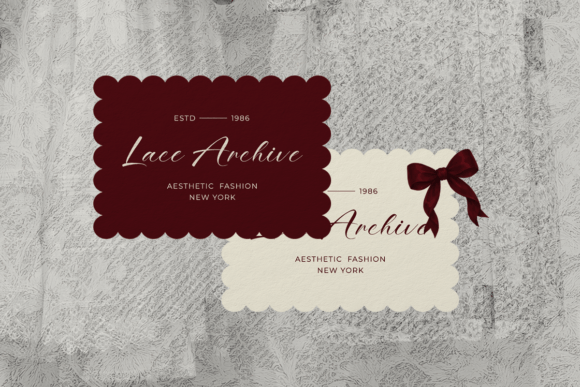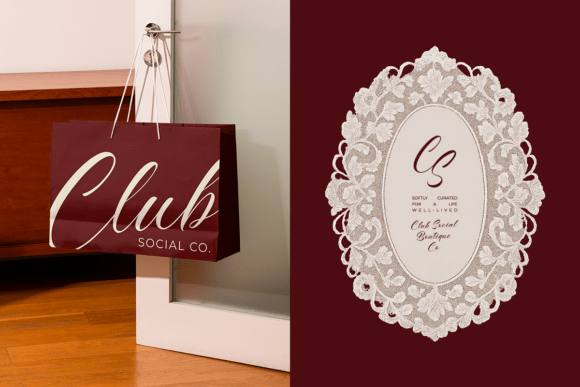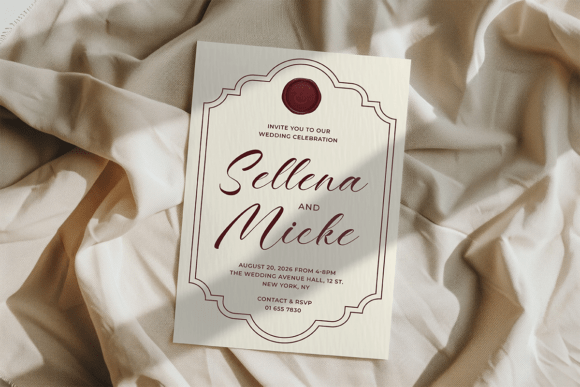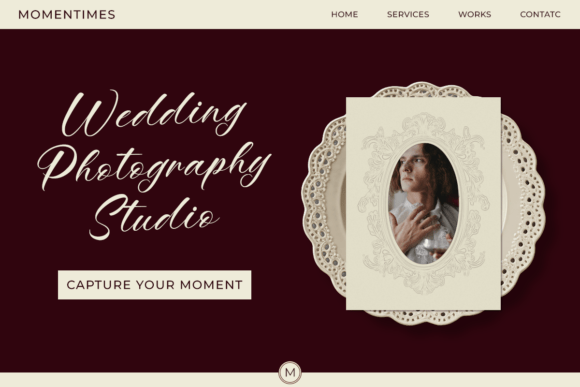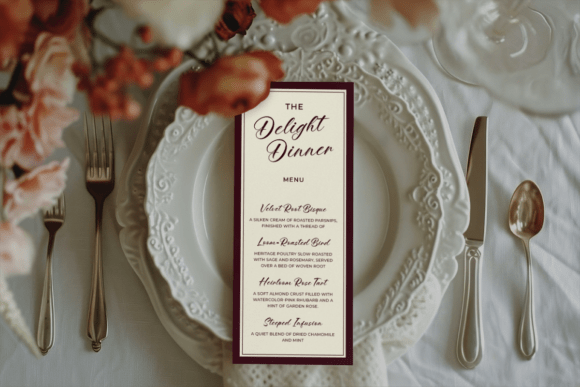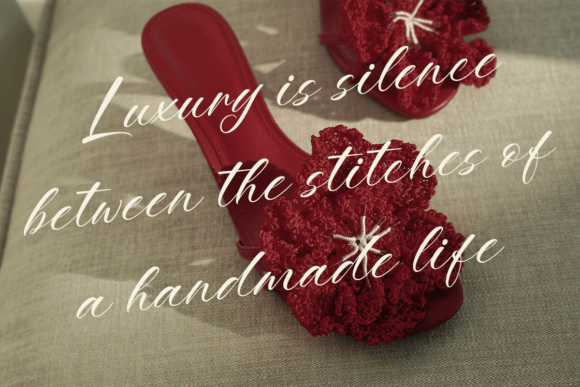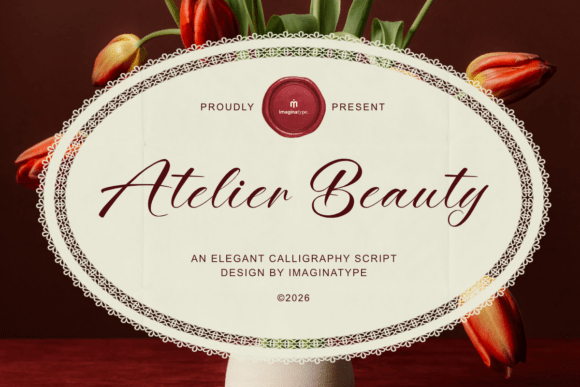
Discover the Timeless Elegance of Atelier Beauty Font
Have you ever been in the middle of a design project, pouring your heart and soul into every detail, only to realize that the perfect font is still elusive? I recall a particularly frustrating experience while working on a luxury wedding invitation project. My client wanted a font that exuded elegance, sophistication, and romance, but everything I tried seemed to fall flat. That was until I stumbled upon Atelier Beauty, a refined calligraphy script typeface that instantly elevated my design to new heights.
A Personal Review of Atelier Beauty
I’m thrilled to share my honest review of Atelier Beauty, a font that has quickly become a staple in my design arsenal.
- ✨ Elegant calligraphy script: Atelier Beauty boasts a sophisticated, handwritten feel that’s perfect for luxury branding, wedding invitations, and high-end packaging.
- ✅ Graceful, flowing strokes: The font’s smooth connections and high-contrast letterforms create a beautiful, artisanal aesthetic.
- ✨ Pristine readability: Despite its elegant appearance, Atelier Beauty remains surprisingly legible, even at smaller font sizes.
- ✅ Versatile: This font is suitable for a wide range of creative projects, from fashion branding to restaurant menus and more.
While Atelier Beauty is an exceptional font, it’s not without its quirks:
- 🤔 Limited use in body text: Due to its elegant, cursive nature, Atelier Beauty may not be the best choice for lengthy body text. It’s better suited for headlines, titles, or short paragraphs.
- ⚠️ Kerning issues: As with any script font, kerning can be a bit tricky. Be sure to adjust the tracking and kerning to ensure optimal readability.
A Practical Guide to Using Atelier Beauty
- Experiment with OpenType features, such as swashes and stylistic alternates, to add unique touches to your design.
The Backstory Behind Atelier Beauty
While the true story behind Atelier Beauty remains a mystery, it’s easy to imagine that this font was crafted by a skilled calligrapher with a passion for luxury and elegance. Perhaps the designer spent countless hours perfecting the font’s flowing strokes and high-contrast letterforms, inspired by the world of high-end fashion and fine art.
| What makes Atelier Beauty unique? | Atelier Beauty’s unique blend of elegance, sophistication, and artisanal charm sets it apart from other script fonts. |
| Is Atelier Beauty difficult to read? | No, despite its elegant appearance, Atelier Beauty remains surprisingly legible, even at smaller font sizes. |
| Can I use Atelier Beauty for body text? | While Atelier Beauty is beautiful, it’s better suited for headlines, titles, or short paragraphs. For lengthy body text, consider a more traditional serif or sans-serif font. |